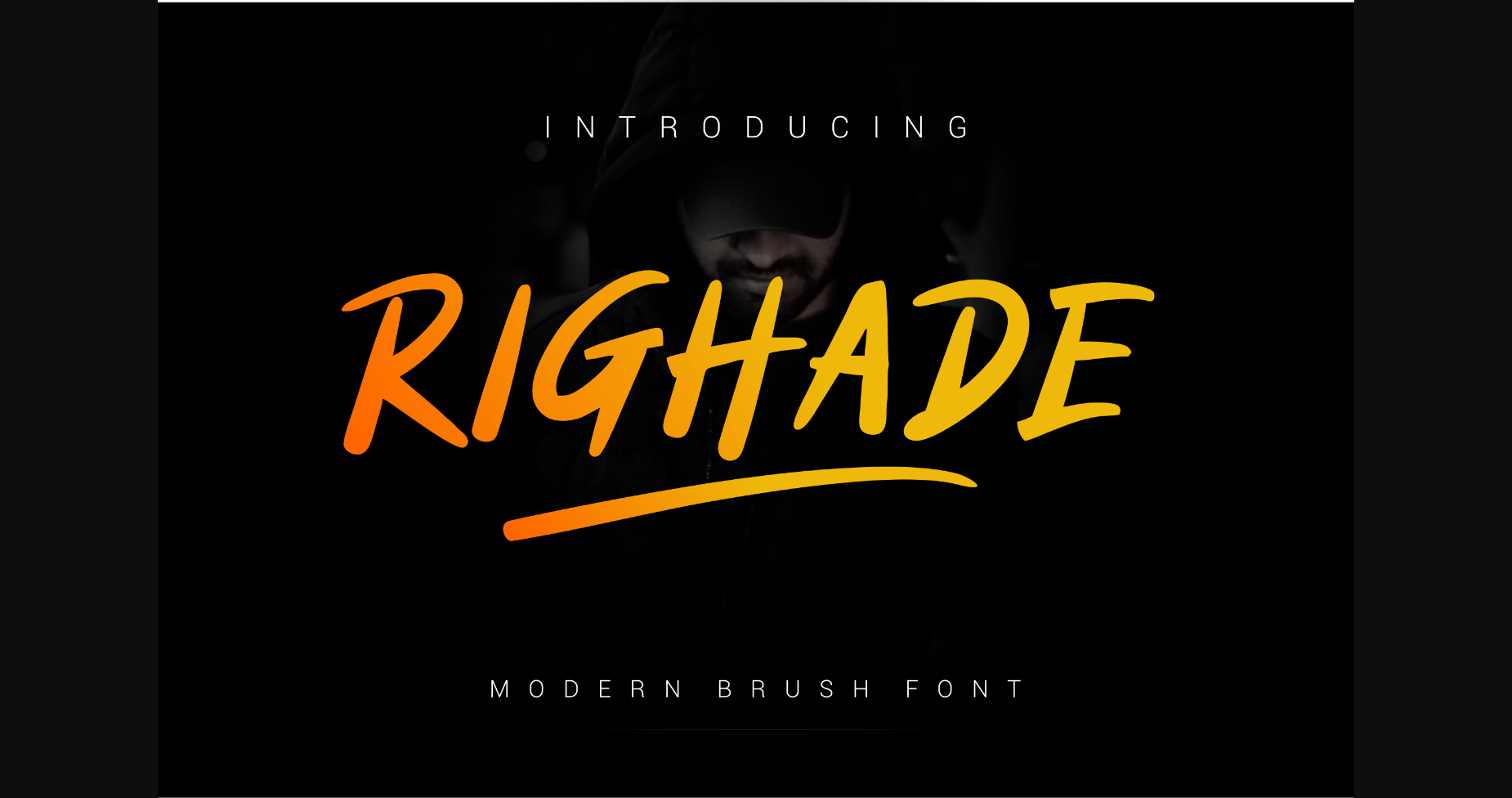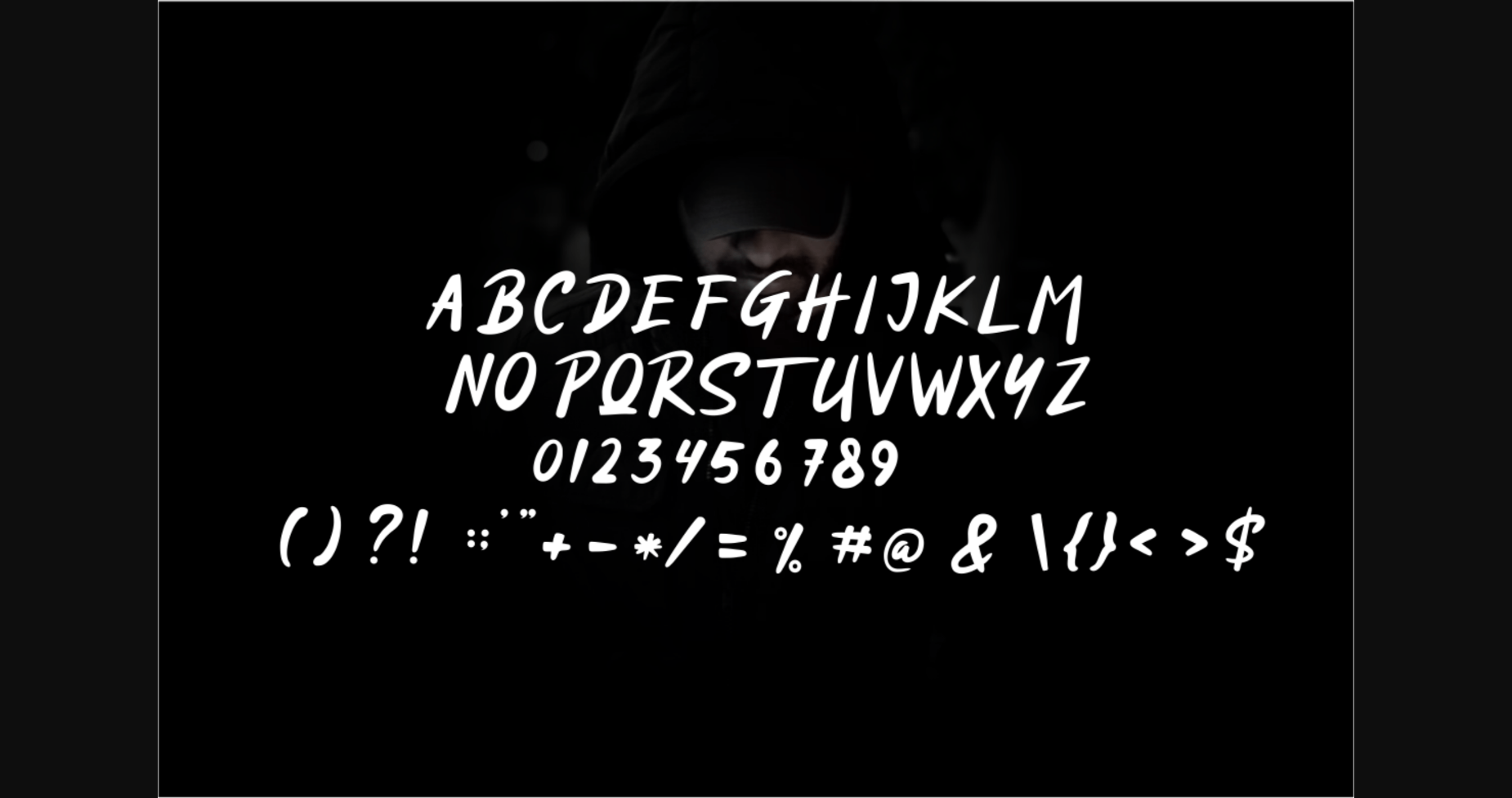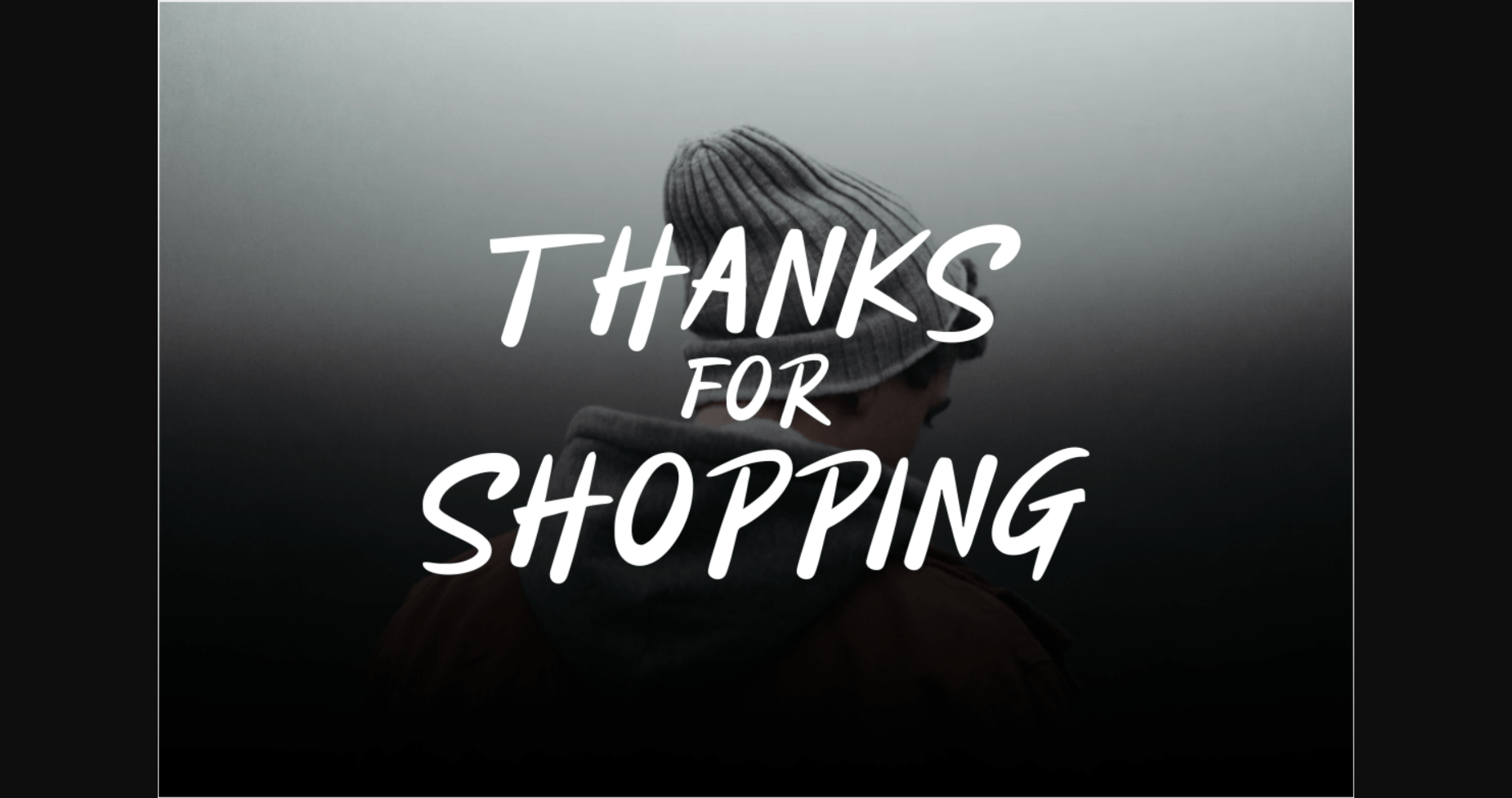
About Righade Font
Righade is a brush font designed to charm your projects. From quotes and packaging to whatever else, this font will send the message you desire.